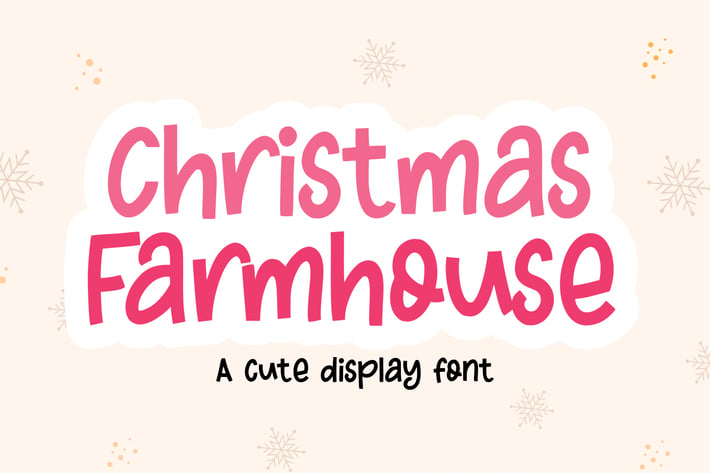
Christmas Farmhouse - Christmas Font
Introducing Christmas Farmhouse, a fun and cute display font that brings a joyful, whimsical touch to your creative projects. Perfect for themes such as Christmas, Easter, Cricut projects, embroidery, Thanksgiving, and more, Christmas Farmhouse adds a playful and charming flair to your designs. Its cheerful and eye-catching characters are ideal for crafting vibrant cards, festive decorations, and personalized gifts that capture the spirit of the holidays.
Christmas Farmhouse is PUA Encoded, making it easy to access and use every alternate character for a truly unique and customized look. Whether you're designing intricate Cricut projects, creating adorable embroidered pieces, or crafting eye-catching decorations for Thanksgiving and Easter, this font's versatility and ease of use will elevate your creations. Its fun and cute style is perfect for adding a touch of whimsy and personality to both professional and personal projects.